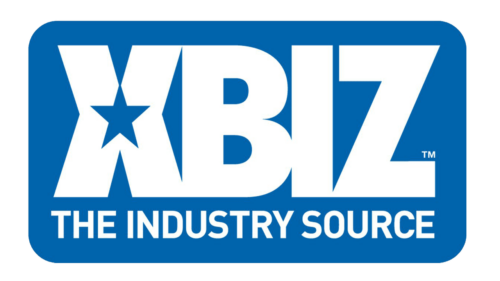
XBIZ is a trade publication focusing on the adult entertainment industry. It covers various aspects including adult video production, digital media, sex toys, and retail. XBIZ offers news, feature articles, information about industry conferences, and legal analysis relevant to adult entertainment professionals. Renowned for its XBIZ Awards, it recognizes outstanding achievements in the field. It’s a key resource for industry updates and trends, catering to professionals and stakeholders in the adult entertainment world.
XBIZ, initiated in 1998 by entrepreneur Alec Helmy, emerged as a pivotal resource in the adult entertainment realm. Its inception marked a new era in industry-related journalism, initially focusing on digital platforms before broadening to encompass various aspects of the adult entertainment sector, including film production, technology, and novelty items.
The publication quickly established itself as a cornerstone for industry insights, addressing the evolving landscape of adult entertainment. It delves into topics such as technological innovations, market dynamics, and legal aspects, providing a comprehensive view for its audience.
Notably, XBIZ distinguishes itself with the XBIZ Awards, launched in 2003. These awards have gained acclaim for celebrating excellence across multiple facets of the adult industry, from filmmaking to digital media. The event annually congregates a diverse array of industry professionals, spotlighting trailblazers and innovators.
In addition to the awards, XBIZ hosts the XBIZ Conference, a significant gathering for networking and professional development. This event draws a global audience, featuring insightful discussions and seminars that reflect the industry’s current trends and future directions.
XBIZ’s journey also includes expanding its media presence, launching additional publications and embracing digital transformation. This expansion reflects its commitment to being at the forefront of industry news and analysis. Its evolution from a web-based platform to a comprehensive industry guide underscores its role as an essential resource in the adult entertainment landscape, catering to a wide spectrum of professionals and enthusiasts alike.
What is XBIZ?
XBIZ stands as a key trade publication in the adult entertainment industry, offering a diverse blend of news, analysis, and insights. Established in 1998, it serves as a comprehensive source for professionals, covering trends in adult video, digital media, and retail, along with hosting influential industry events like the XBIZ Awards.
Today
XBIZ Logo
The logo features a bold, uppercase “XBIZ” in a large, sans-serif font, asserting a strong presence. A prominent star substitutes the dot of the ‘I’, adding a dynamic flair. The color scheme is a classic combination of white and a deep, confident blue, symbolizing professionalism and reliability. This blue is encased within a boundary, suggesting a commitment to providing defined, structured information. Above the main text, the phrase “THE INDUSTRY SOURCE” is included, emphasizing the brand’s authority and its role as a central resource within its sector. The overall design is modern, with clean lines that convey a sense of clarity and straightforwardness.